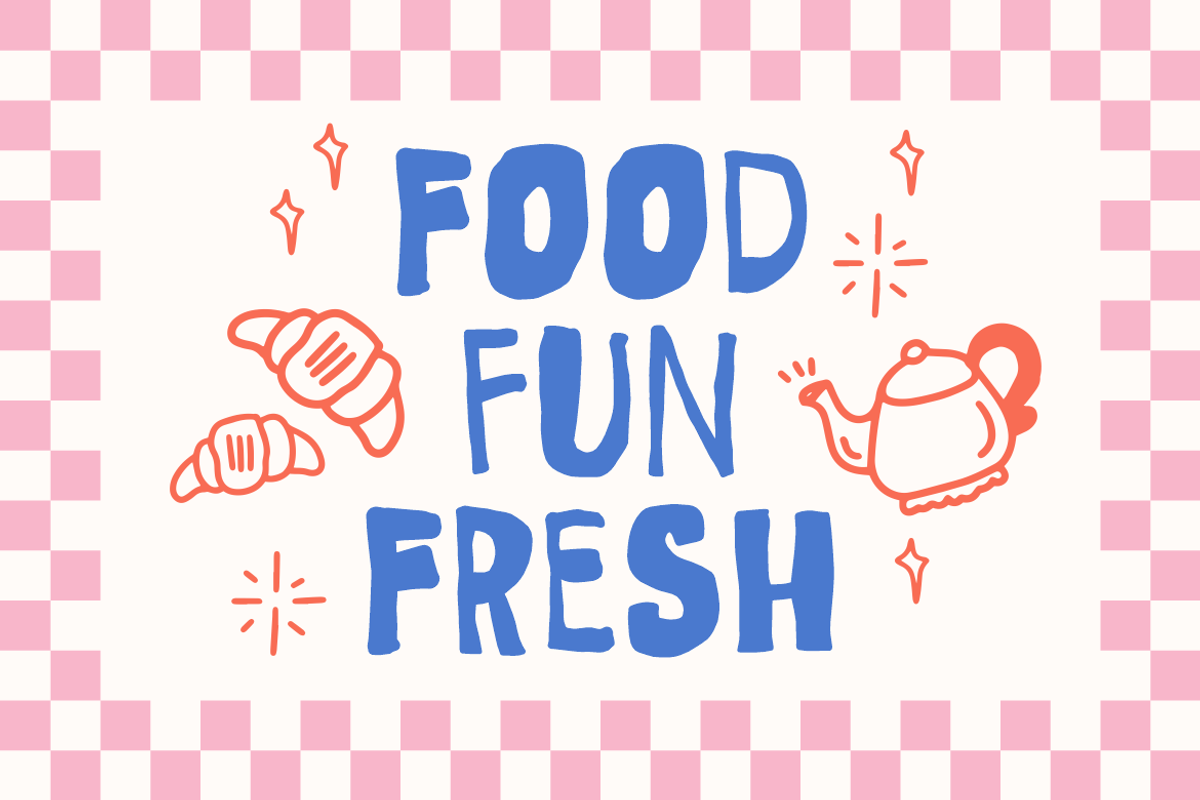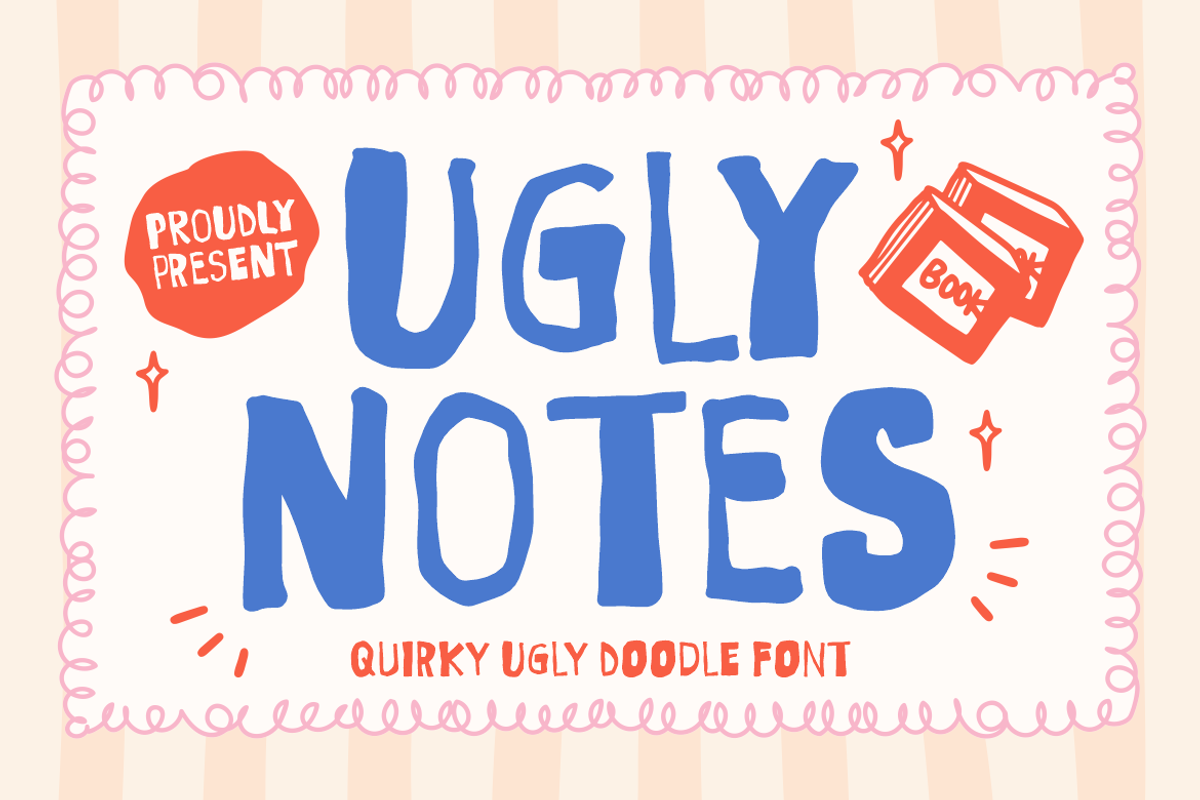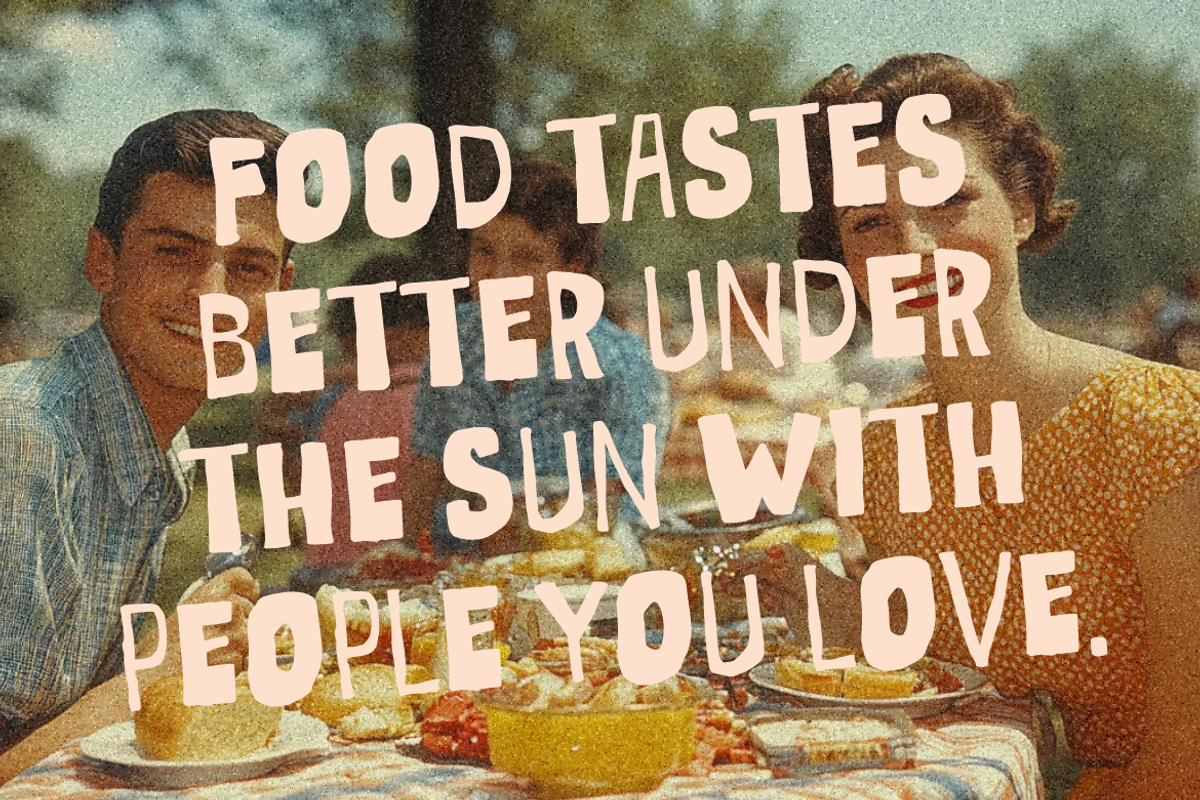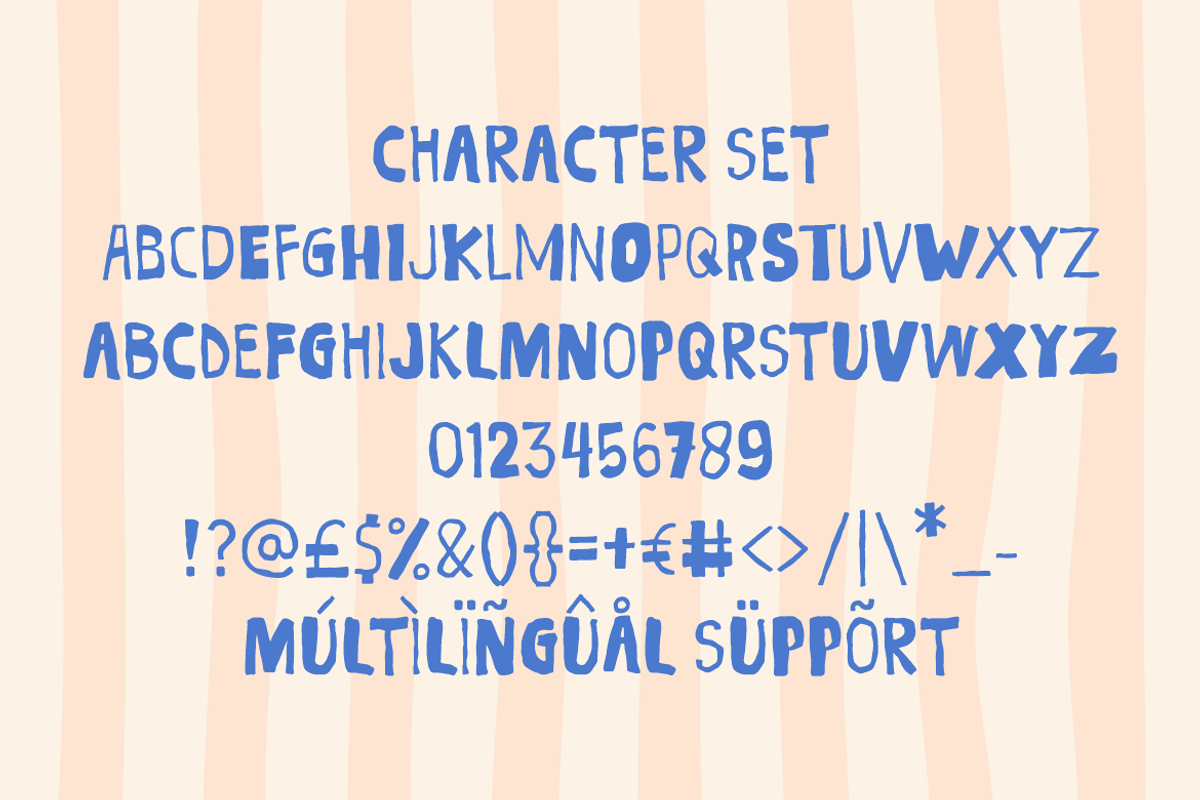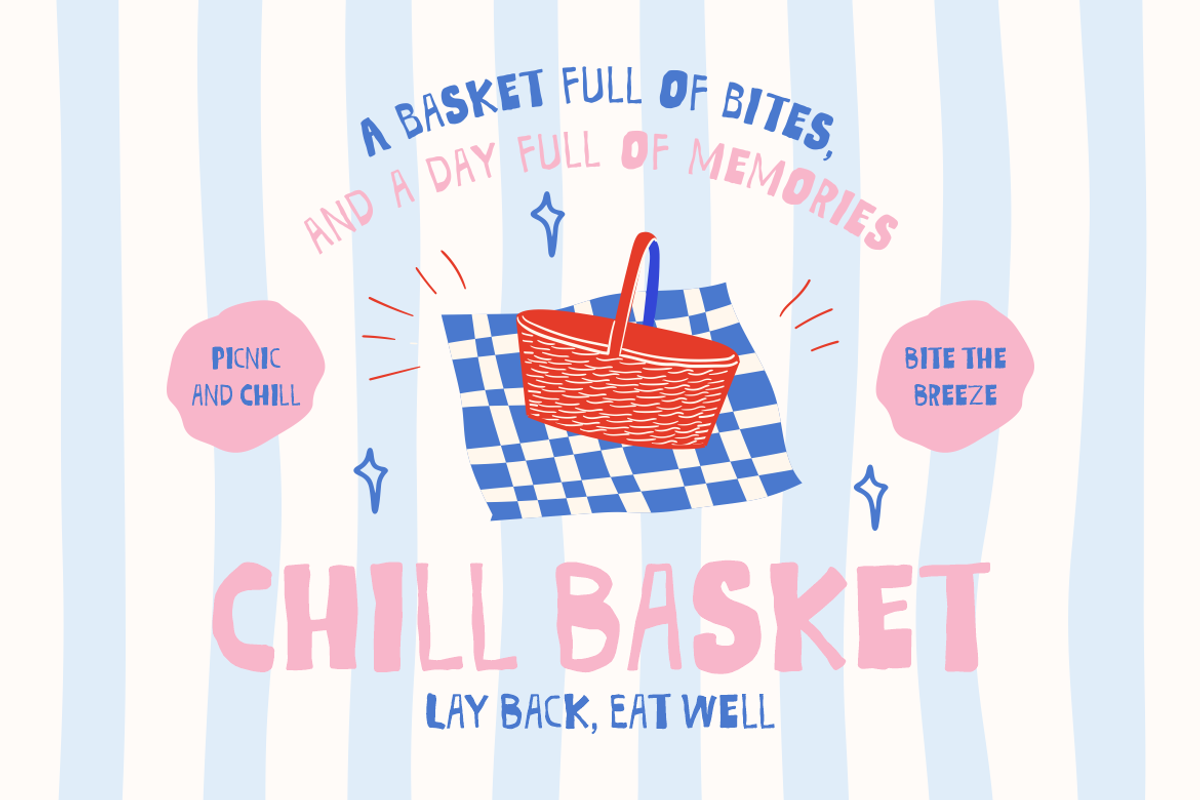
Ugly Notes Quirky Ugly Doodle Font
Ugly Notes Quirky Ugly Doodle Font brings an authentic hand-drawn spirit to your creative projects. Each letter has an uneven, organic shape that gives the font a natural and spontaneous feel. The strokes are thick and slightly irregular, creating a sense of warmth and imperfection that feels personal and approachable. The tall, rounded forms give enough balance for readability while keeping a loose, casual rhythm. Ugly Notes Quirky Ugly Doodle Font captures the joy of handwritten doodles—expressive, free, and delightfully imperfect. Its charm lies in the way every letter feels unique, as if written with playful enthusiasm.
Perfect for branding, packaging, posters, invitations, and kids’ illustrations, this font shines in cheerful, lively contexts. It’s also ideal for quote designs, product labels, stickers, and handmade crafts that need an authentic human touch. Whether you’re creating a friendly logo or a joyful poster, Ugly Notes Quirky Ugly Doodle Font instantly adds personality and charm. Its doodle-inspired design blends fun and creativity, making it perfect for designers who want to stand out with originality. Playful yet versatile, this typeface transforms ordinary words into delightful handmade art.